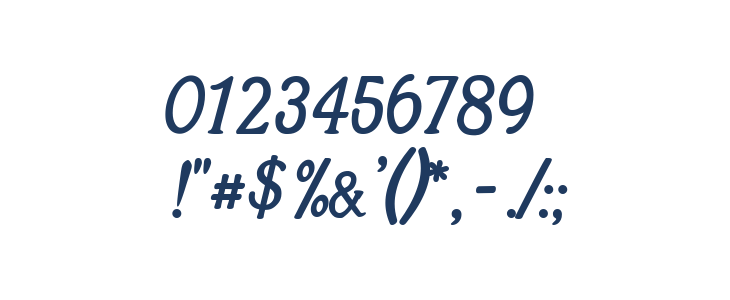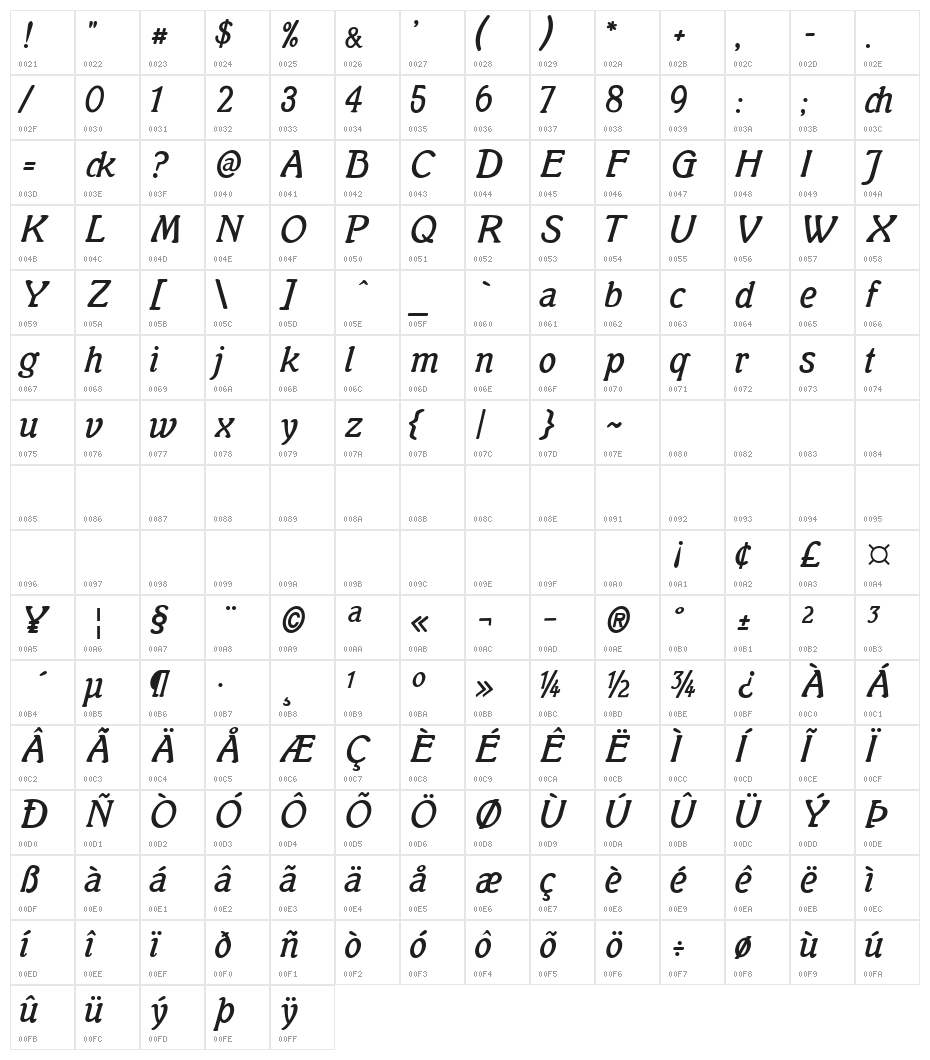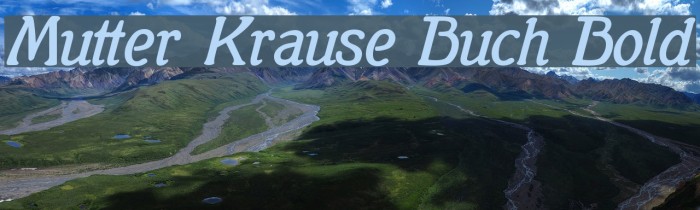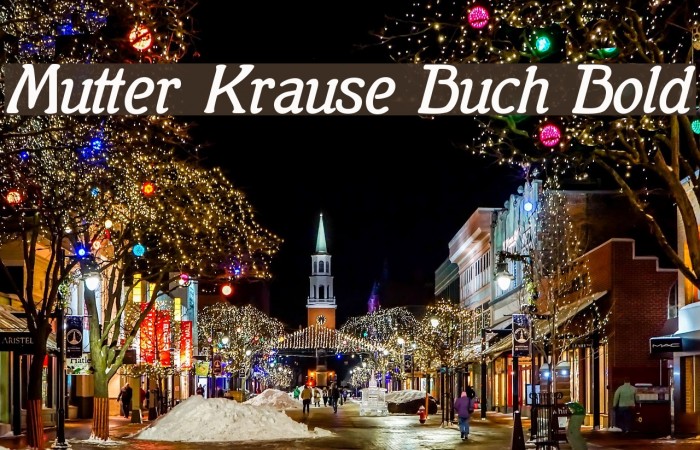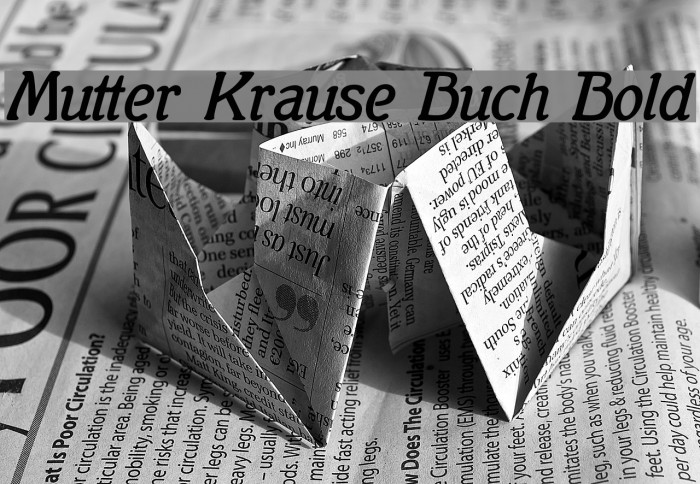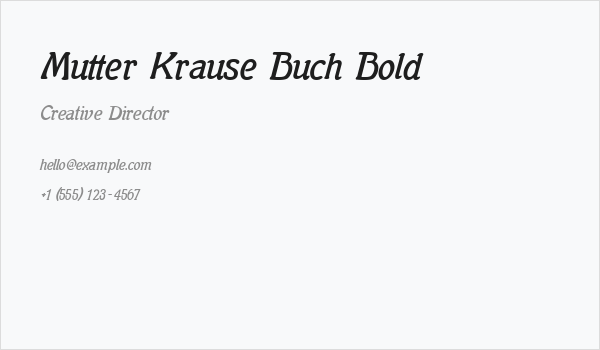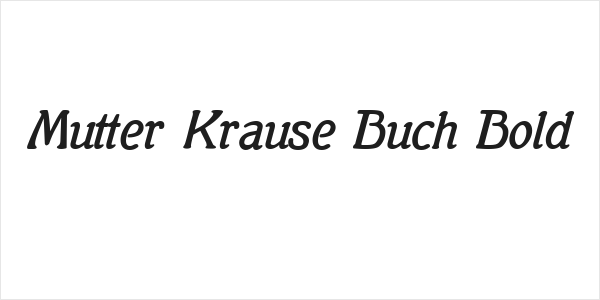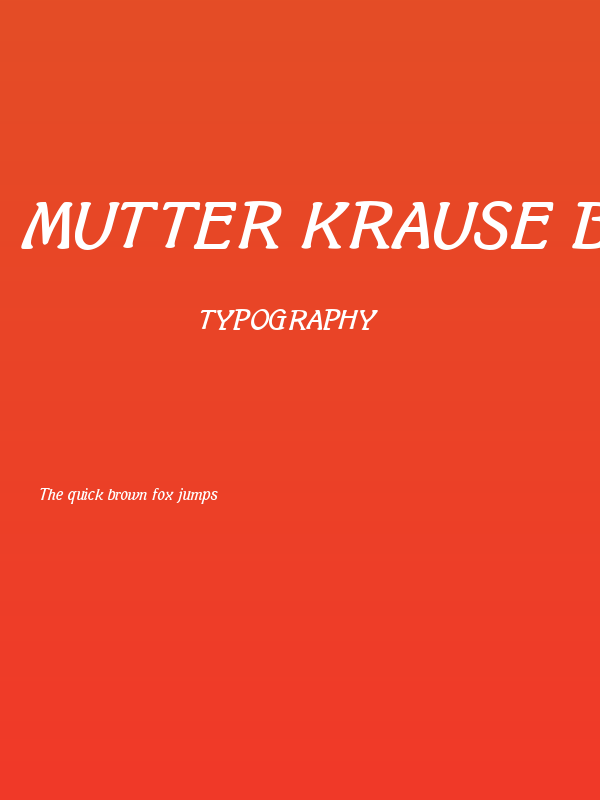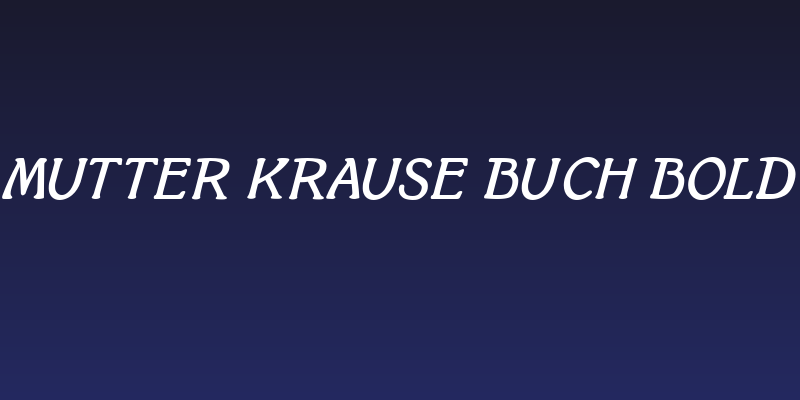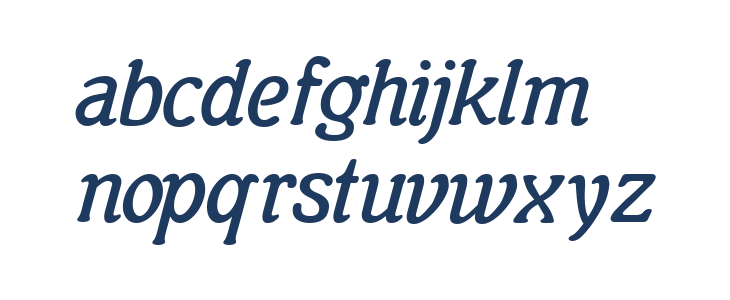
Mutter Krause Buch Bold Font
Mutter Krause Buch Bold Description
This font features a classic serif style with a bold and slightly italicized appearance. The characters are well-defined with a moderate contrast between thick and thin strokes, giving it a dynamic yet elegant look. The uppercase letters are slightly taller than the lowercase, maintaining a traditional serif structure. The numerals are consistent with the overall style, offering clarity and readability. Special characters are distinct and harmonize well with the rest of the font, making it versatile for various uses.